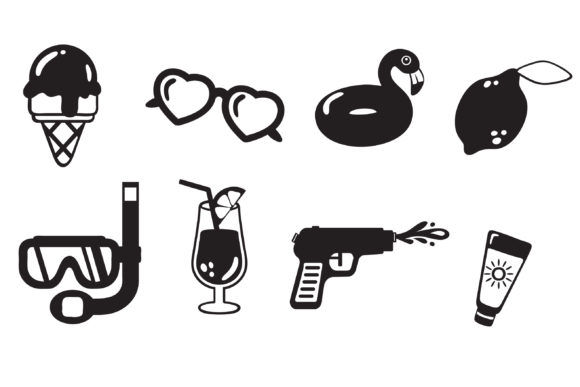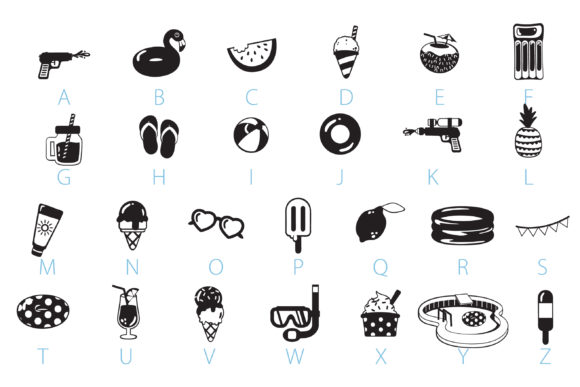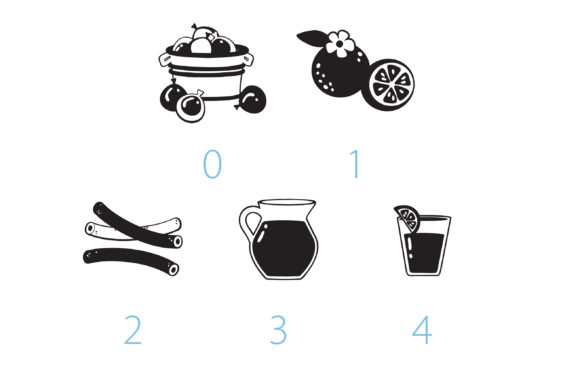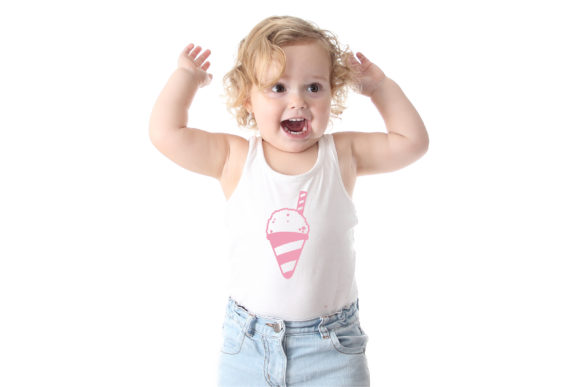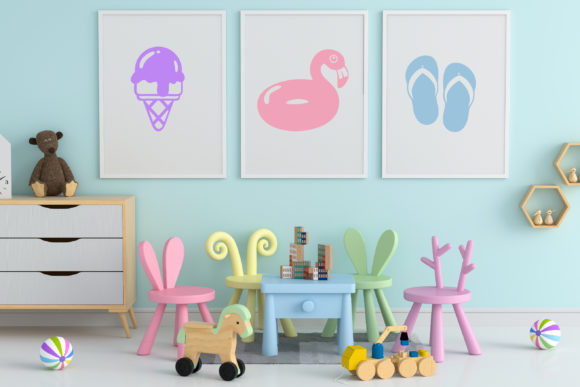
Introduction to Pool Party Font
Have you ever found yourself daydreaming about summer, surrounded by sunshine and laughter, and suddenly an idea for a new design project pops into your head? For designers, these moments of inspiration can be a game-changer. The right font can make all the difference between a good design and a great one.
One such font that can bring a splash of fun and creativity to your design is the Pool Party Font. This charming dingbats font is perfect for adding a playful touch to your next creative project. With its carefree, summery vibe, it’s sure to bring a smile to the faces of your audience.
Key Features of Pool Party Font
- High-quality design: The Pool Party Font is a premium font designed for creative projects, offering a unique and eye-catching style.
- Transparent background: The font comes with a transparent background, allowing for seamless integration into various design elements.
- High-resolution images: The font includes high-resolution images, making it perfect for printing and other high-quality applications.
- Size: The font size ranges from 12 to 72 points, providing flexibility for various design projects.
- Perfect for summer-themed designs: The Pool Party Font is specifically designed for summer-themed projects, making it an ideal choice for designs related to pool parties, beach vacations, and other warm-weather events.
Honest Review: Pool Party Font
As a designer, I’m always on the lookout for high-quality design resources to elevate my creative projects. Recently, I stumbled upon the Pool Party Font, and I’m excited to share my honest review with you.
- ✨ The font is a great addition to any design that needs a fun, playful vibe.
- ✨ The transparent background allows for easy customization and integration into various design elements.
- ⚠️ The font may not be suitable for formal or professional designs, as it’s quite playful and attention-grabbing.
- ⚠️ The Pool Party Font might not be as versatile as other fonts, as its unique style may not work well in all design contexts.
Overall, I think the Pool Party Font is a great addition to any designer’s toolkit. While it may have some limitations, its unique style and high quality make it a valuable resource for creative projects. If you’re looking for a fun, eye-catching font to add some excitement to your designs, the Pool Party Font is definitely worth checking out.
How to Use Pool Party Font
Tips for Getting the Most Out of Pool Party Font
To get the most out of the Pool Party Font, use it to create eye-catching headings, add a pop of color to your design, or create a fun and playful atmosphere.
Common Use Cases for Pool Party Font
The Pool Party Font is perfect for birthday invitations, summer-themed designs, and kids’ party decorations. Its high-quality design and transparent background make it easy to use in a variety of creative projects.